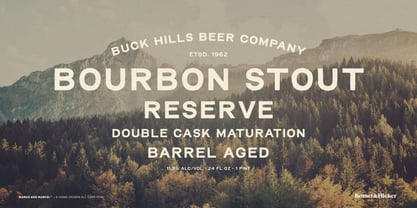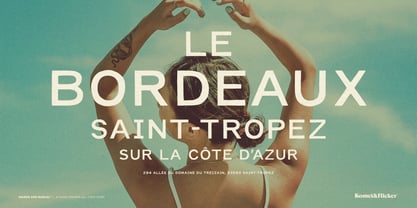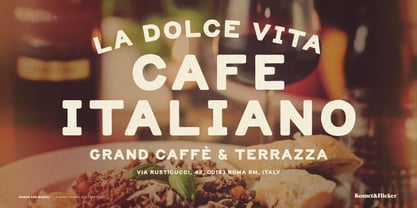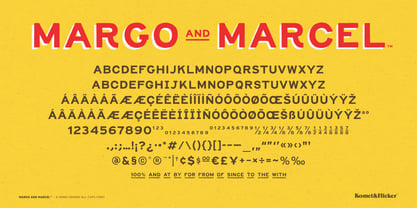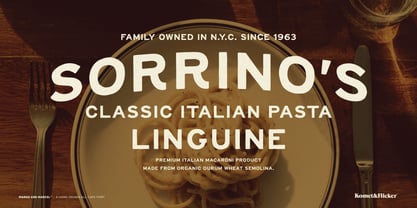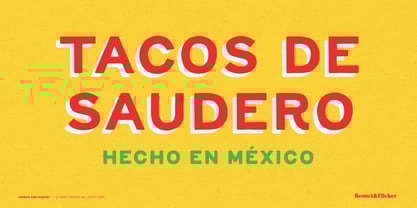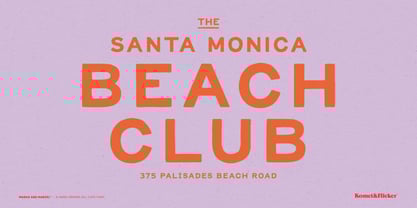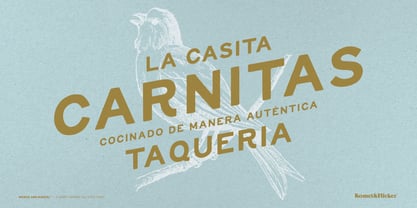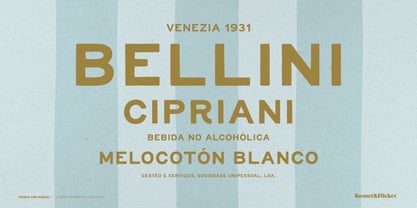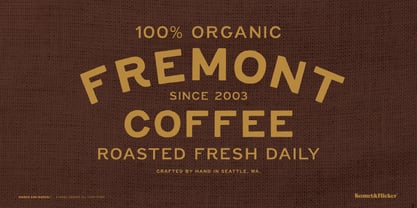
Margo and Marcel
by Komet & Flicker
The Margo and Marcel Font Family was designed by David Phillips and published by Komet & Flicker. Margo and Marcel contains 3 styles and family package options.
Say hello to Margo and Marcel, a charming all caps font with a friendly, down-to-earth vibe. Crafted to be both casual and approachable, this typeface brings a warm, human touch to your projects – perfect for anything from playful branding to relaxed layouts. This font has been hand-drawn, giving the font an organic, slightly imperfect personality that makes it feel truly unique. And for extra versatility, it includes alternate versions of the characters: C, E, G, I, J, K, Q, R, and S. Margo and Marcel also comes with a set of 20 custom connecting words (like AND, THE, WITH) designed to integrate with the rest of your text for added flair. THIS FONT INCLUDES • Full A-Z uppercase basic latin characters • Select European specific characters • Numbers, punctuation, and select symbols • Two styles of pre-made common fractions • Set of 11 custom connecting word glyphs In Illustrator, the extra custom glyphs can easily be accessed in the "Type → Glyphs" panel. In Photoshop they can be accessed through "Type → Panels → Glyphs Panel".
Founded in 2004 in Seattle, Washington by graphic designer and illustrator David Phillips, Komet & Flicker was started to blend David’s love of typography with functional and aesthetically pleasing fonts. Named after the memory of his beloved two cats, Komet & Flicker has grown to include a range of innovative and diverse of typefaces that blend tradition with contemporary aesthetics.